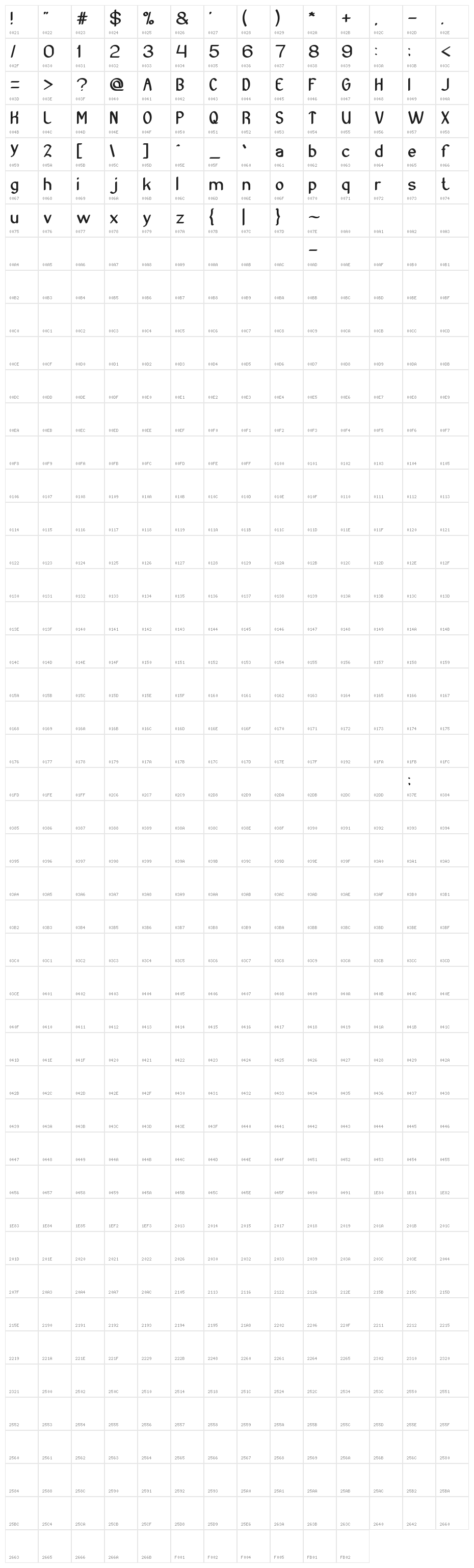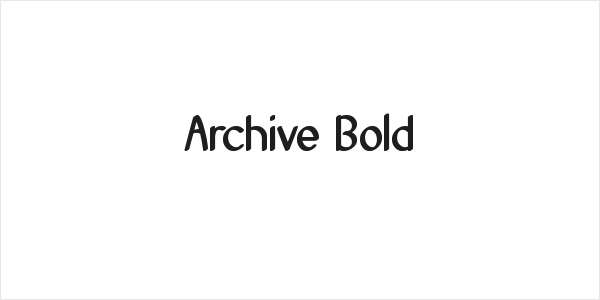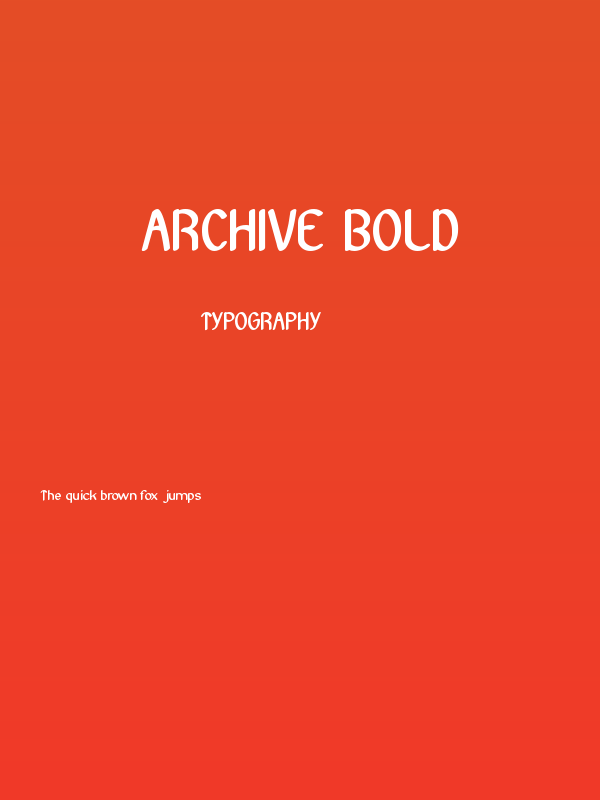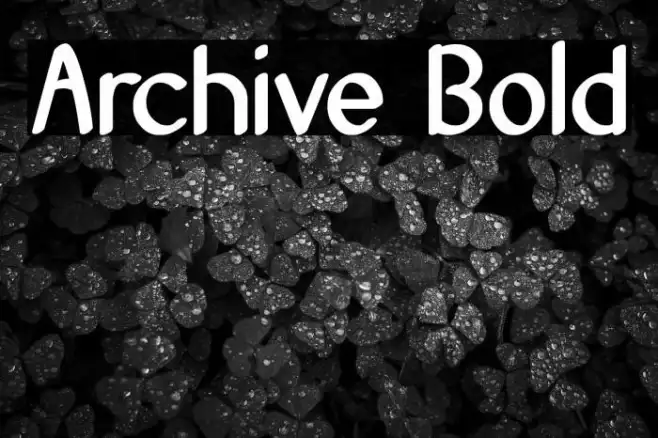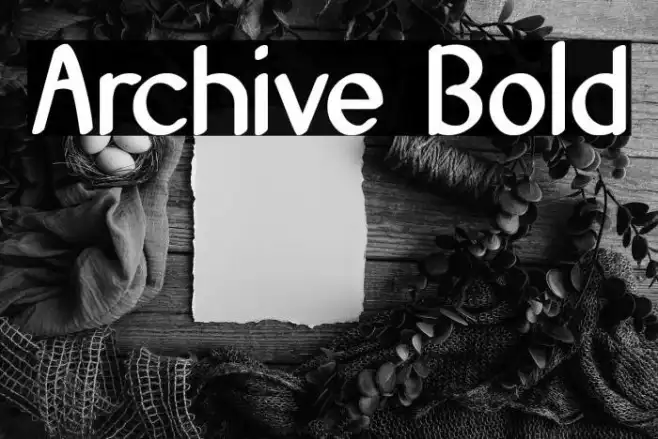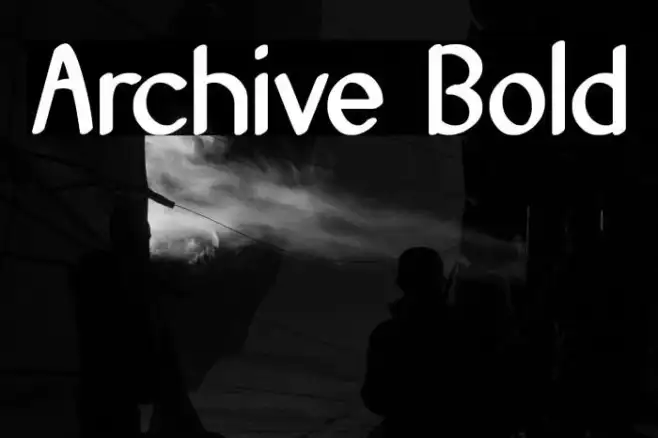
Archive Bold Font
Archive Bold Description
This font features a bold and rounded style with a playful yet structured appearance. The characters are evenly weighted, providing a sense of balance and uniformity. The rounded edges soften the overall look, making it approachable and friendly. The uppercase and lowercase letters maintain a consistent height, contributing to its readability. The numerals and special characters are designed to match the overall aesthetic, ensuring cohesion across all elements. This font is versatile, suitable for both digital and print media, and can effectively capture attention while maintaining clarity.